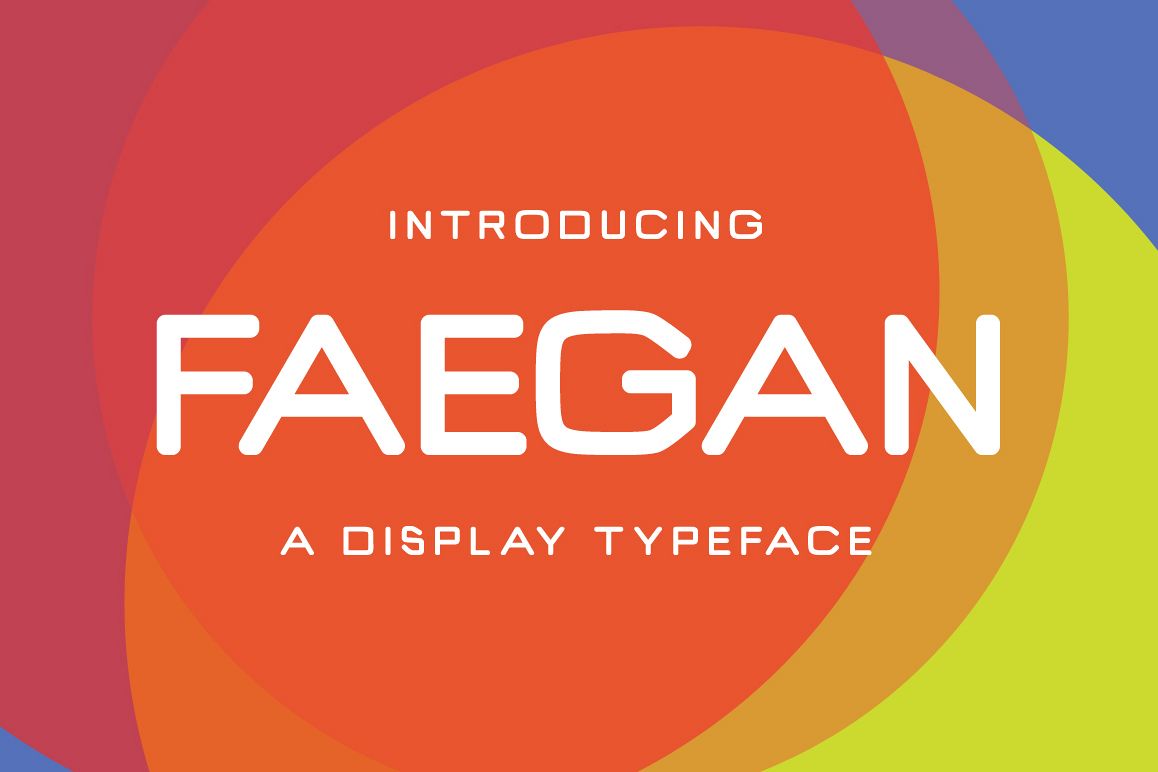
Faegan is a new & modern handmade font.
Faegan is perfectly suited to stationery, logos, t-shirt, paper, print design, website header, photo frame, flyer, music cover, poster, image slider and much more.
Features:- Uppercase
- Numerals